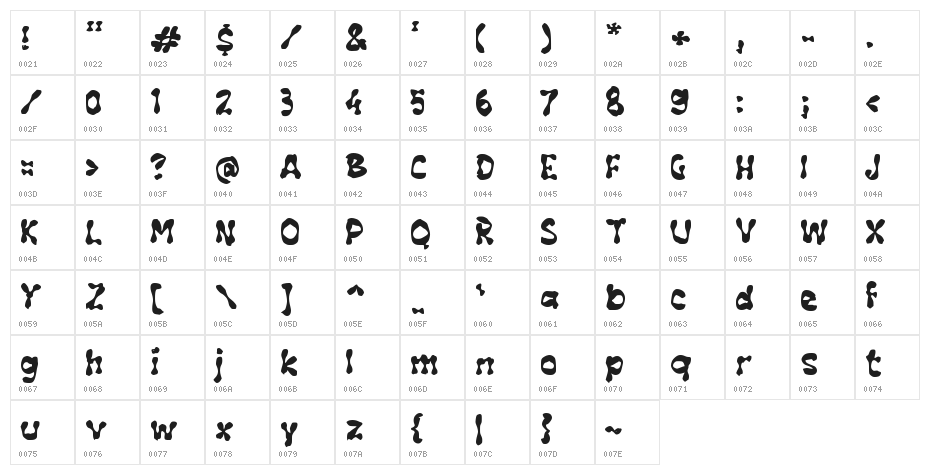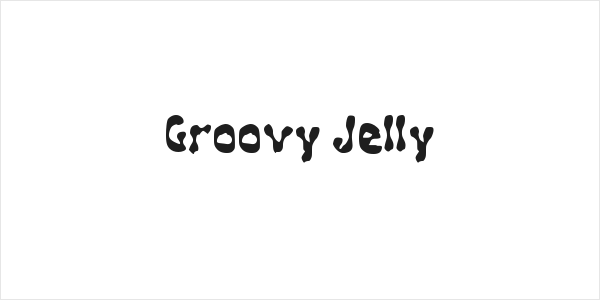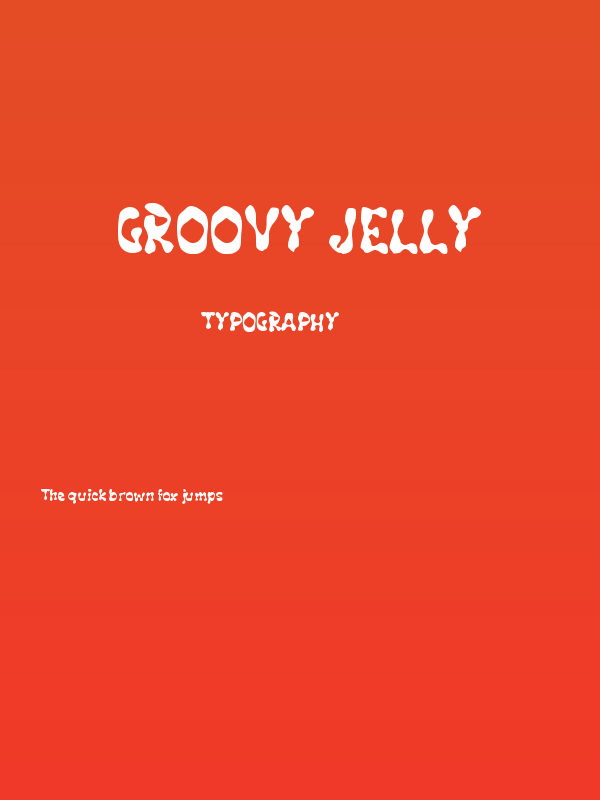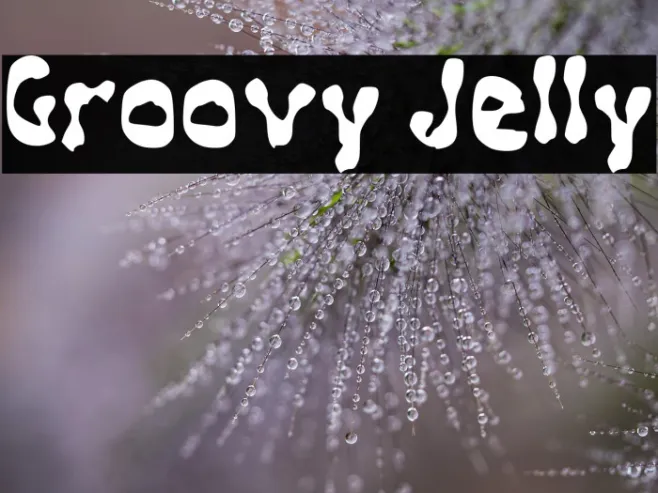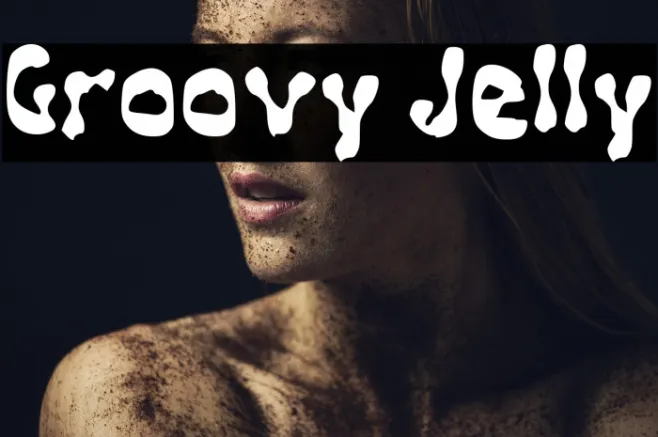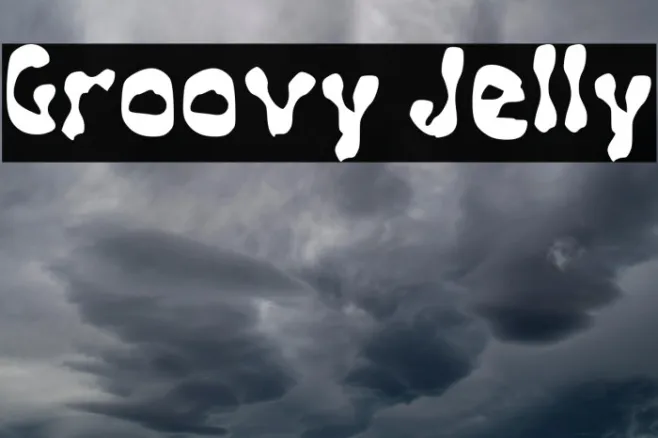
Groovy Jelly Font
Groovy Jelly Description
This playful and bold font features a unique, wavy design that gives each character a dynamic, fluid appearance. The letters are thick and rounded, with irregular edges that create a sense of movement and energy. The font's whimsical style is reminiscent of liquid or jelly, making it stand out with its distinctive, eye-catching look. The uppercase and lowercase letters maintain a consistent style, while the numbers and special characters complement the overall aesthetic. This font is perfect for projects that require a fun, informal touch.
| Proposed Projects | Ideal for children's books, party invitations, playful branding, and creative posters. |